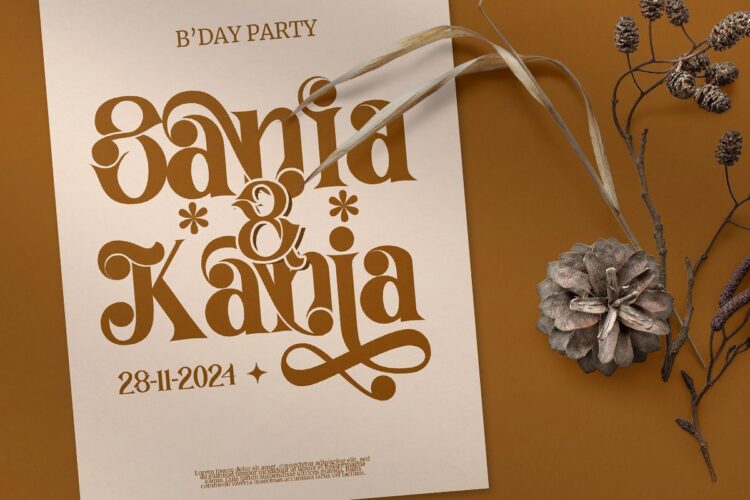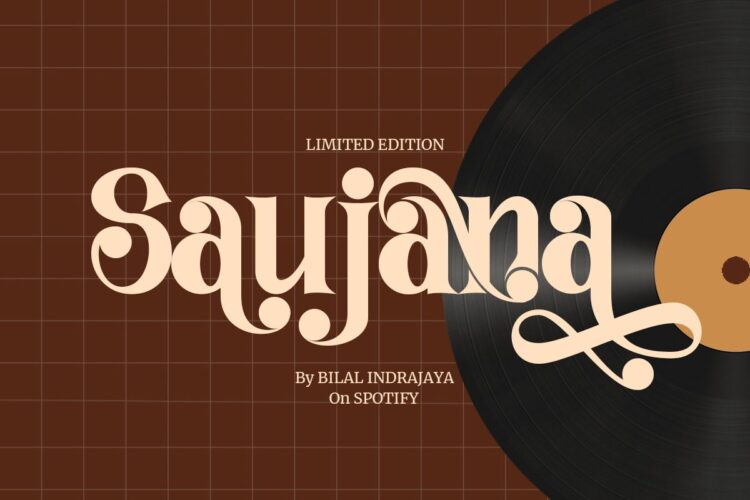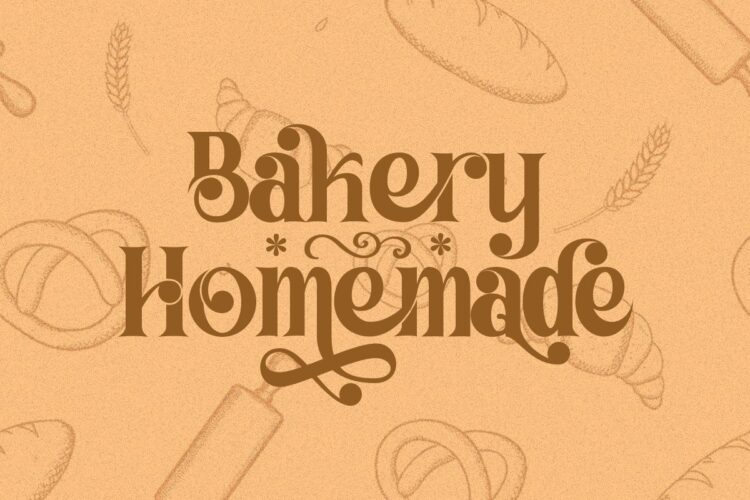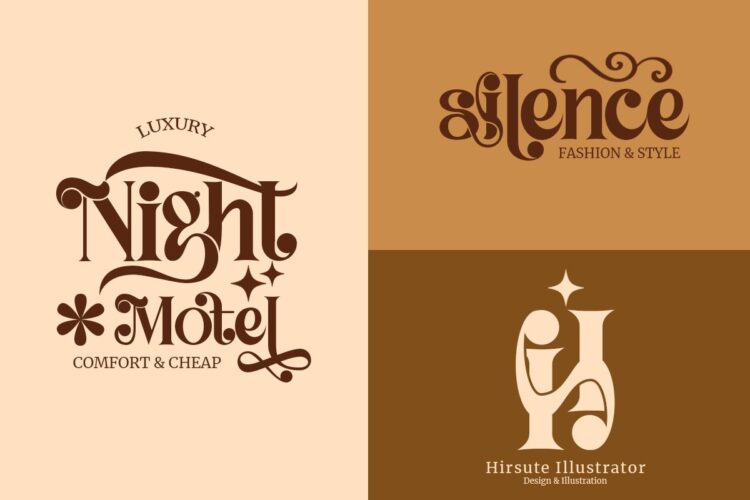
Rain Mage Regular
Rain Mage feels playfully nostalgic and delivers an incredible vintage aesthetic. Use this serif font to add that special retro touch to any design idea you can think of!
Masterfully designed to become a true favorite, this font has the potential to bring each of your creative ideas to the highest level!
• 110+ Special Alternates and Ligatures
Rain Mage – Elegant Serif Font